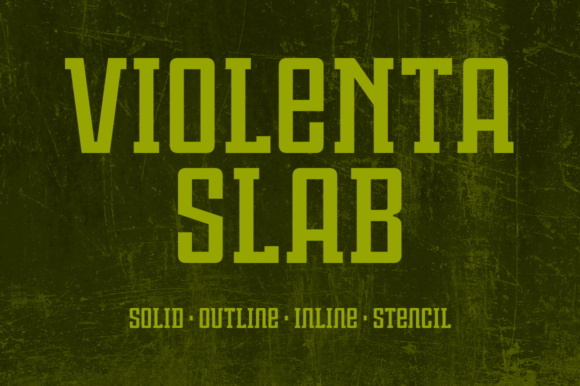
Dare to stand out with Violenta Slab, an electrifying display font family that commands attention. Its sleek geometric design, accented by sharp angles, exudes an air of strength and aggression that will make your words leap off the screen.
With Violenta Slab, you can unleash your message with impact. Its condensed structure amplifies every letter, ensuring maximum visual punch. This font family isn't just a typeface; it's a weapon in your creative arsenal, ready to conquer the digital realm.
Whether you're designing captivating posters, eye-catching headlines, or impactful branding, Violenta Slab will empower your words to cut through the noise and leave an unforgettable impression. Its eight distinct styles, each meticulously crafted with a multitude of language glyphs, offer limitless versatility, allowing you to adapt to any project with ease.
Don't settle for ordinary fonts. Embrace the bold, the daring, the Violenta Slab. Unleash the power of visual impact and make your designs resound with unforgettable strength.